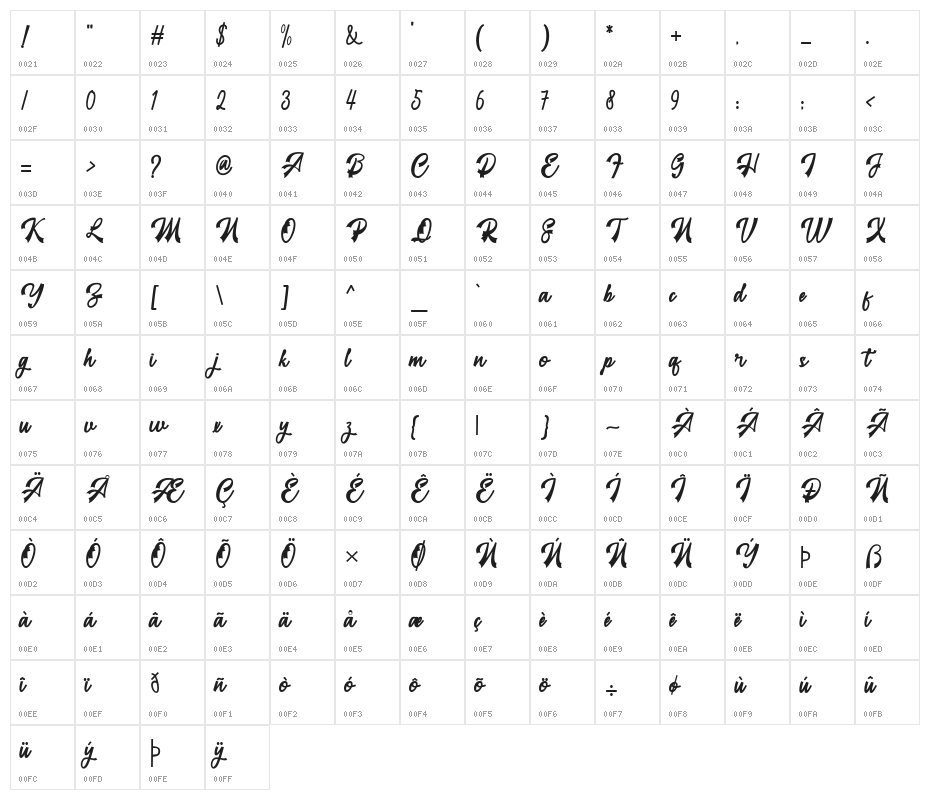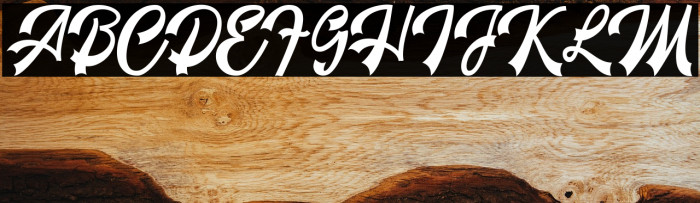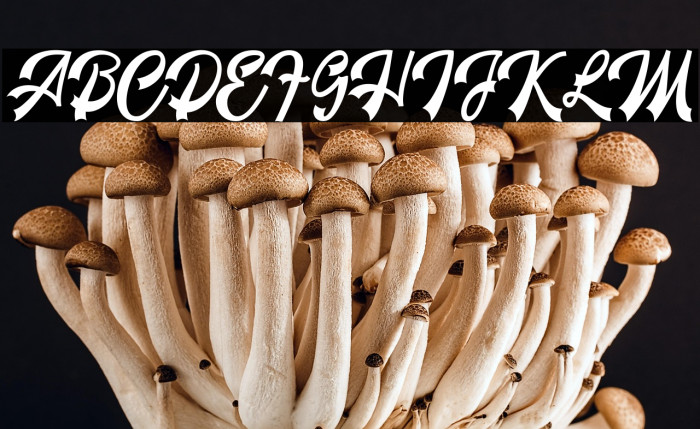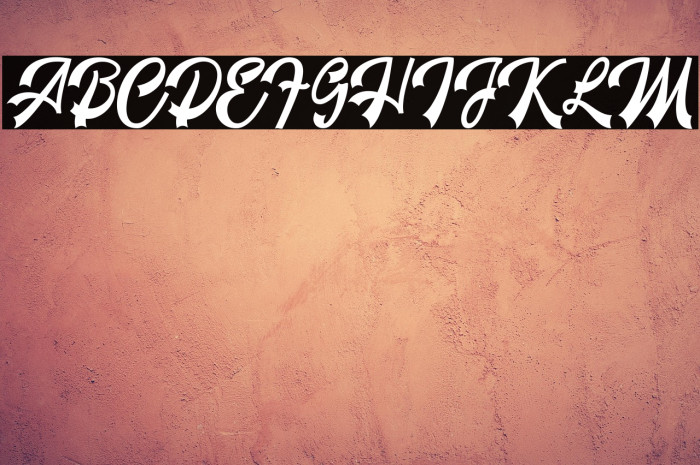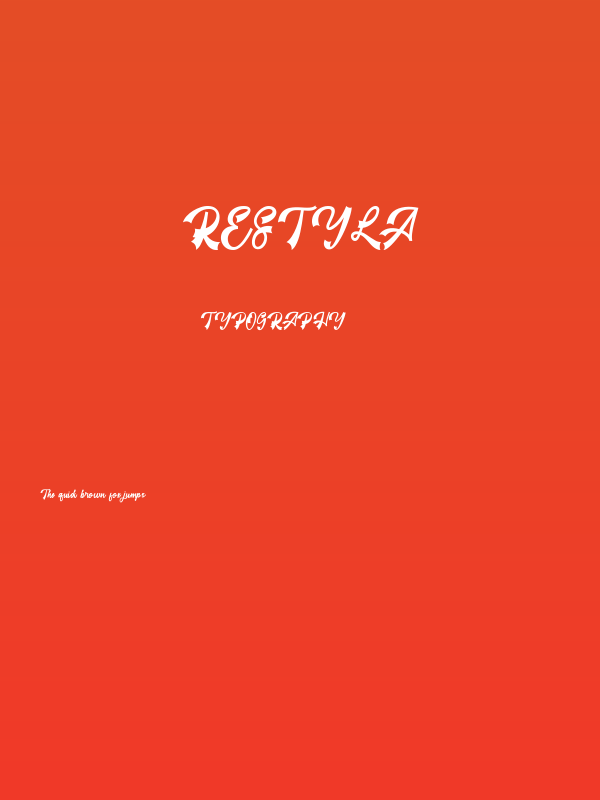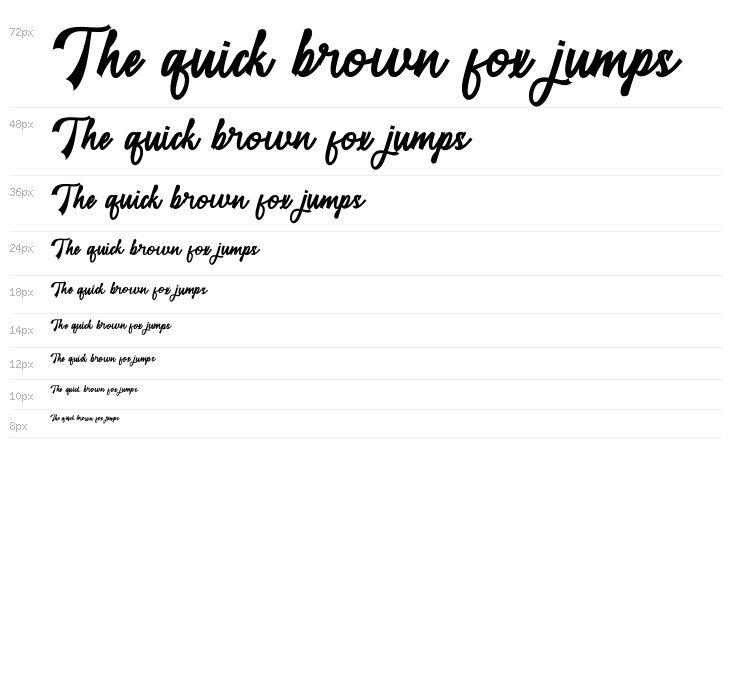
restyla Font
restyla Description
This font features a bold and dynamic script style with a strong presence. The uppercase letters are characterized by their sweeping, cursive forms, giving a sense of elegance and flair. The lowercase letters maintain a consistent flow, with some letters featuring distinctive loops and swashes that add to the font's decorative appeal. The numerals are equally stylized, matching the overall cursive theme. Special characters are included, maintaining the same bold and expressive style. This font is ideal for making a statement, with its high contrast and artistic flair.
| Use Case | Logos, Headlines |
| Proposed Projects | Ideal for wedding invitations, branding projects, logo designs, and decorative headlines. |